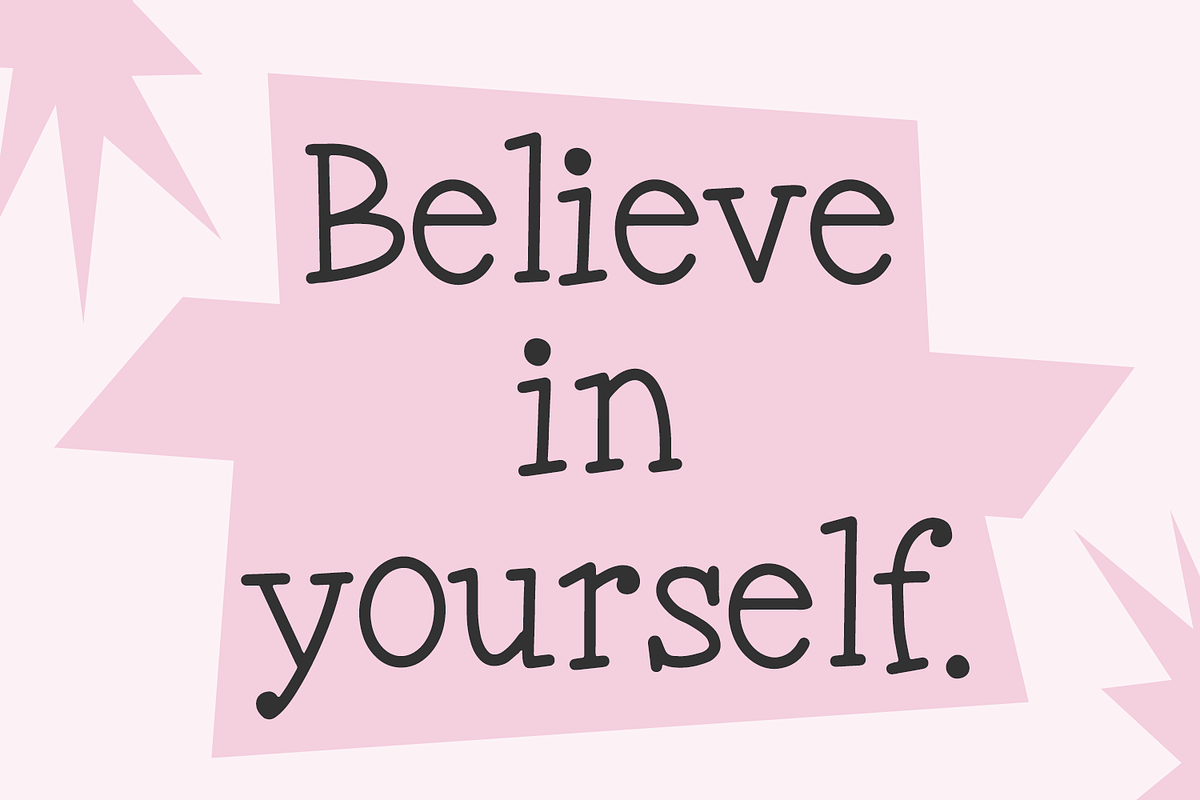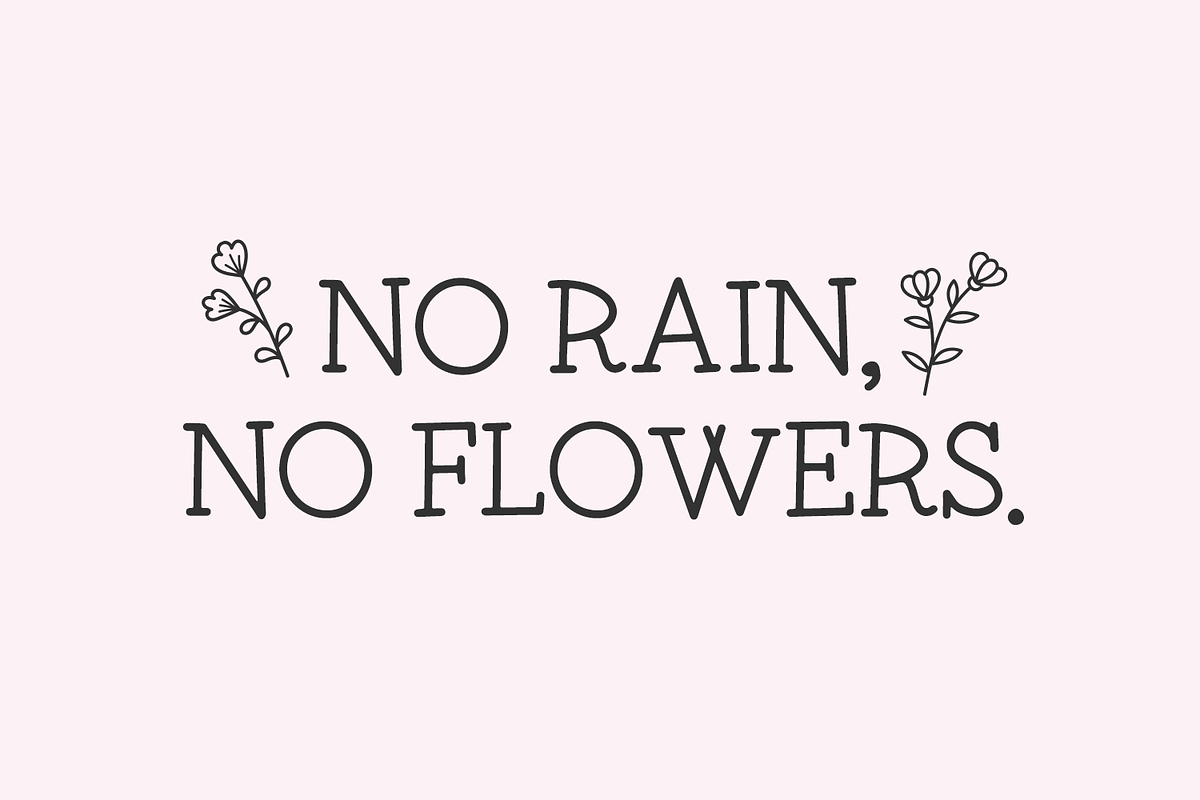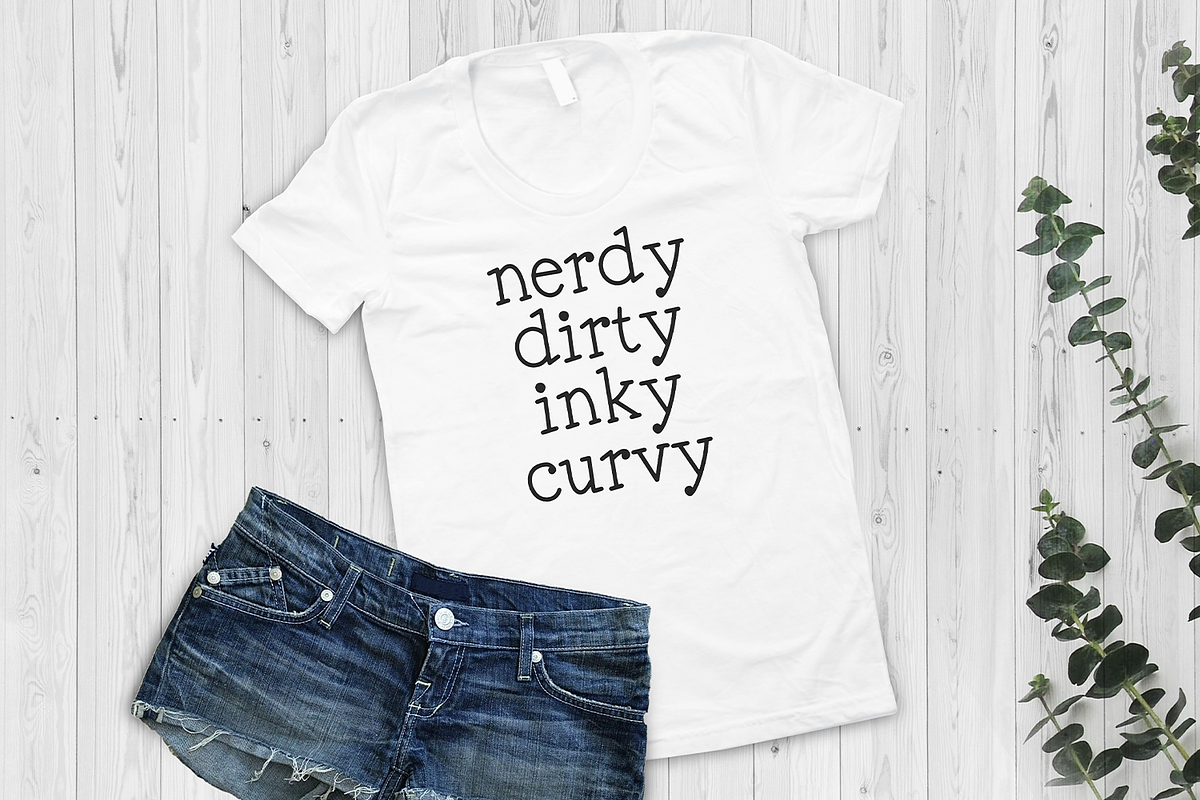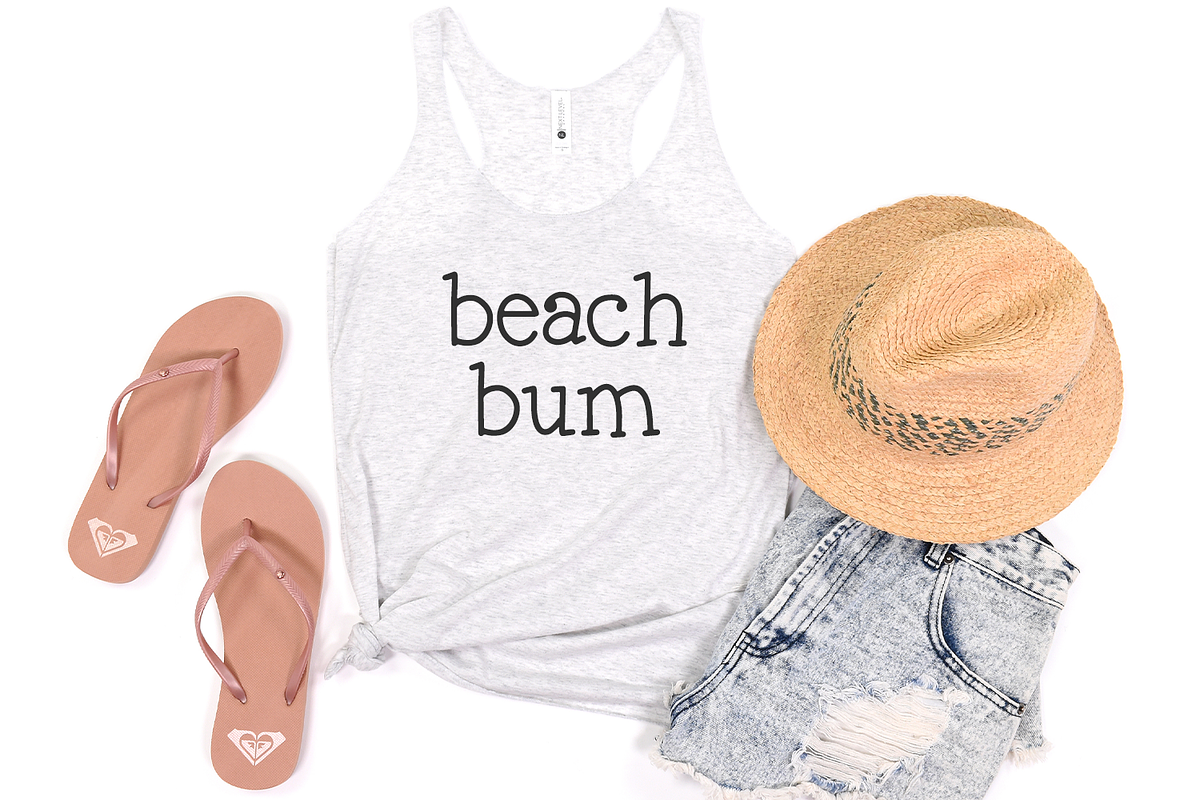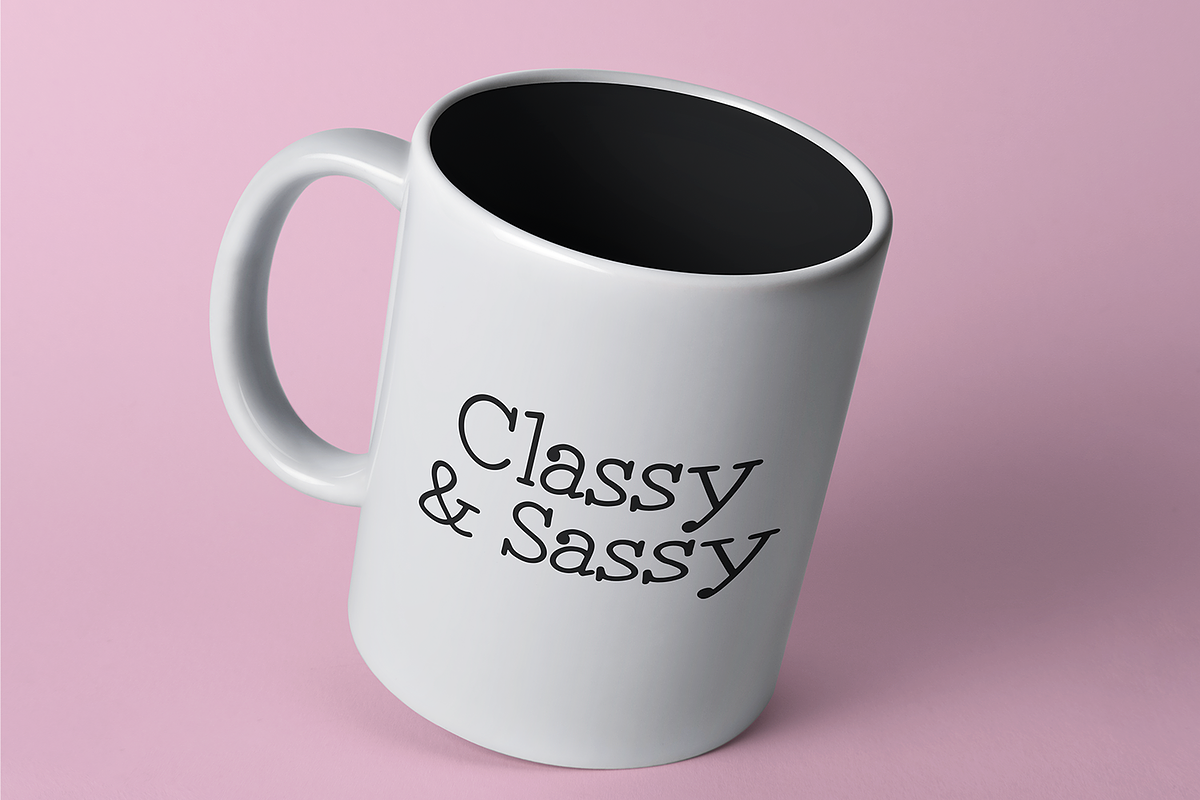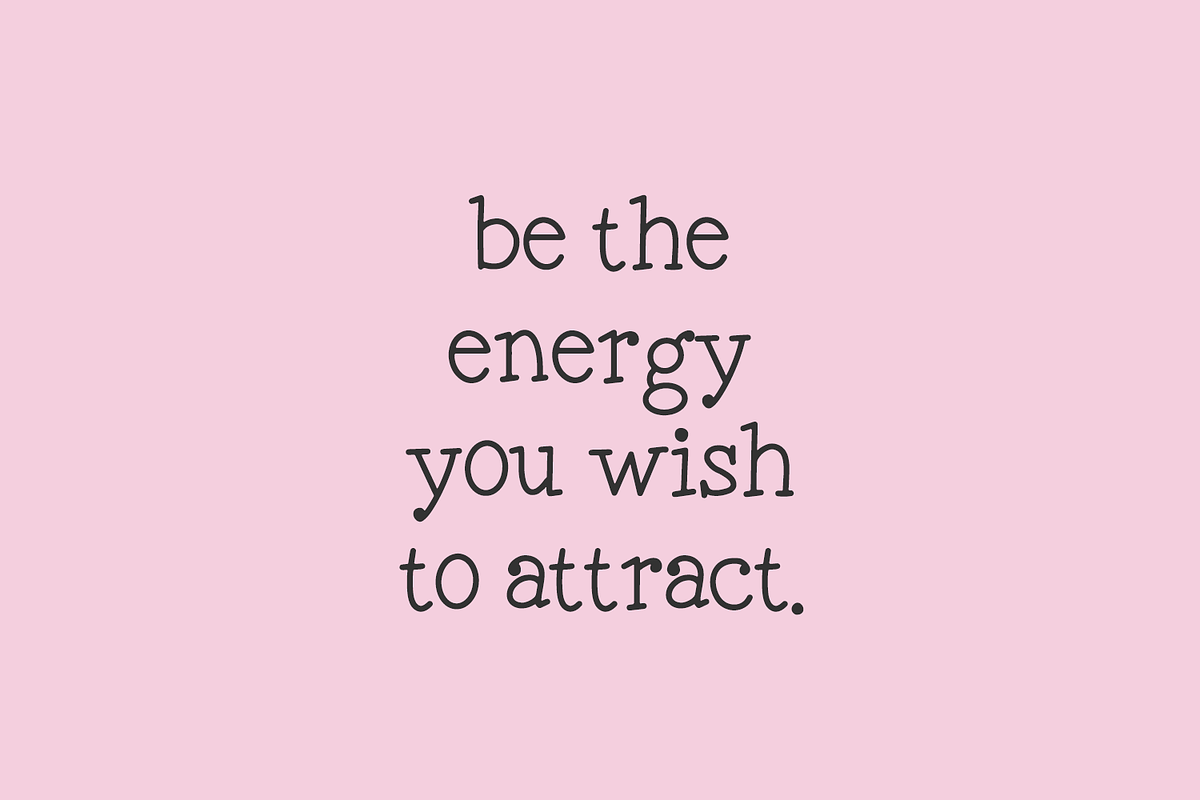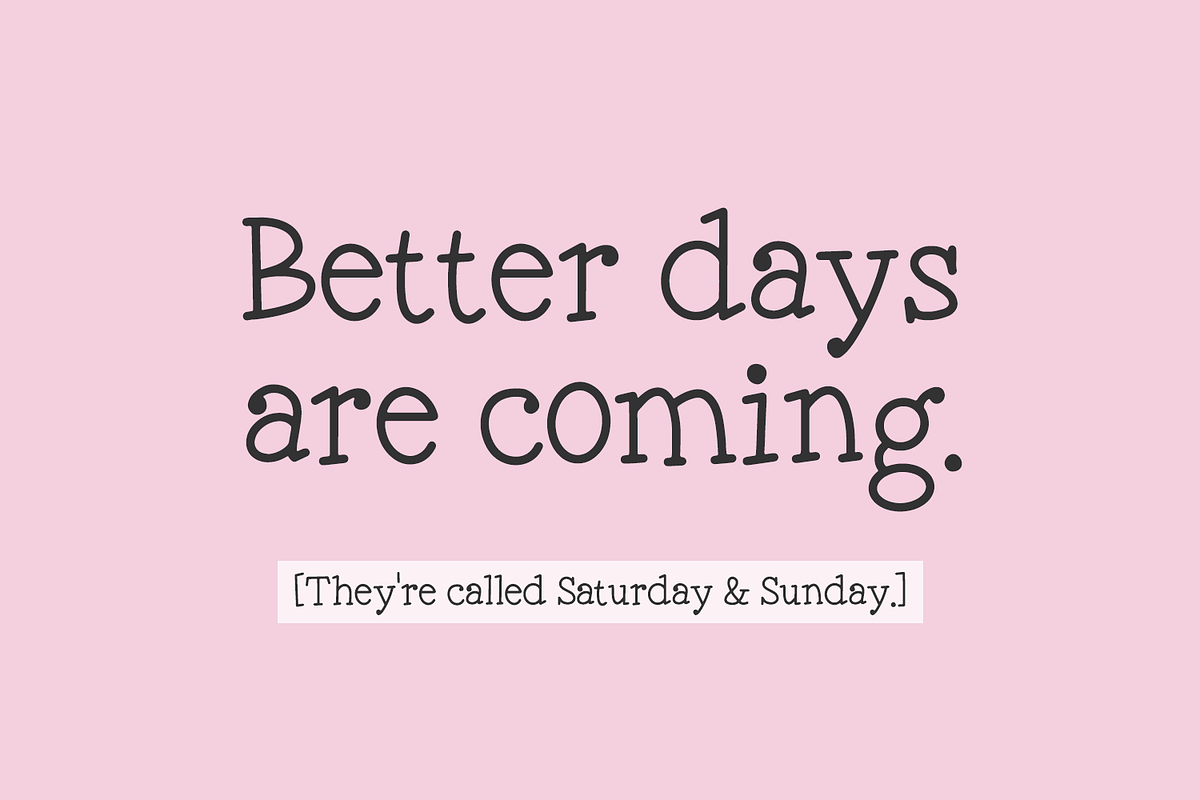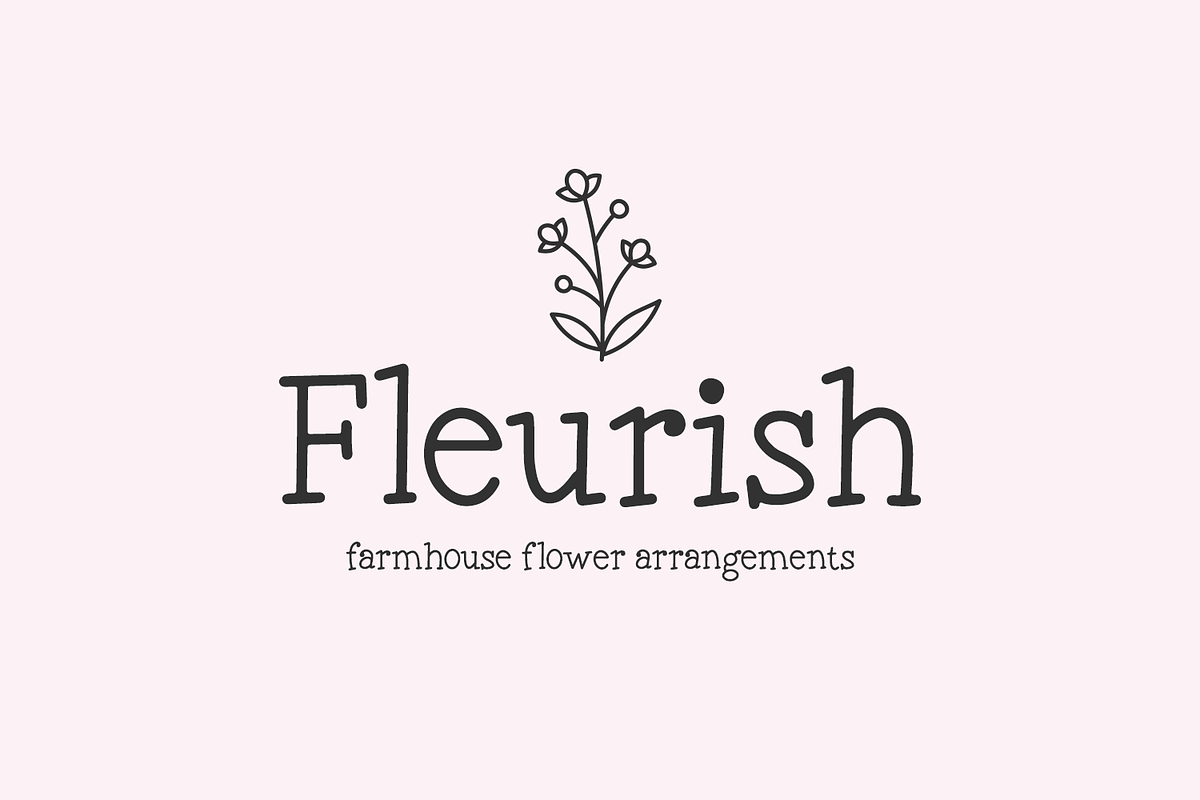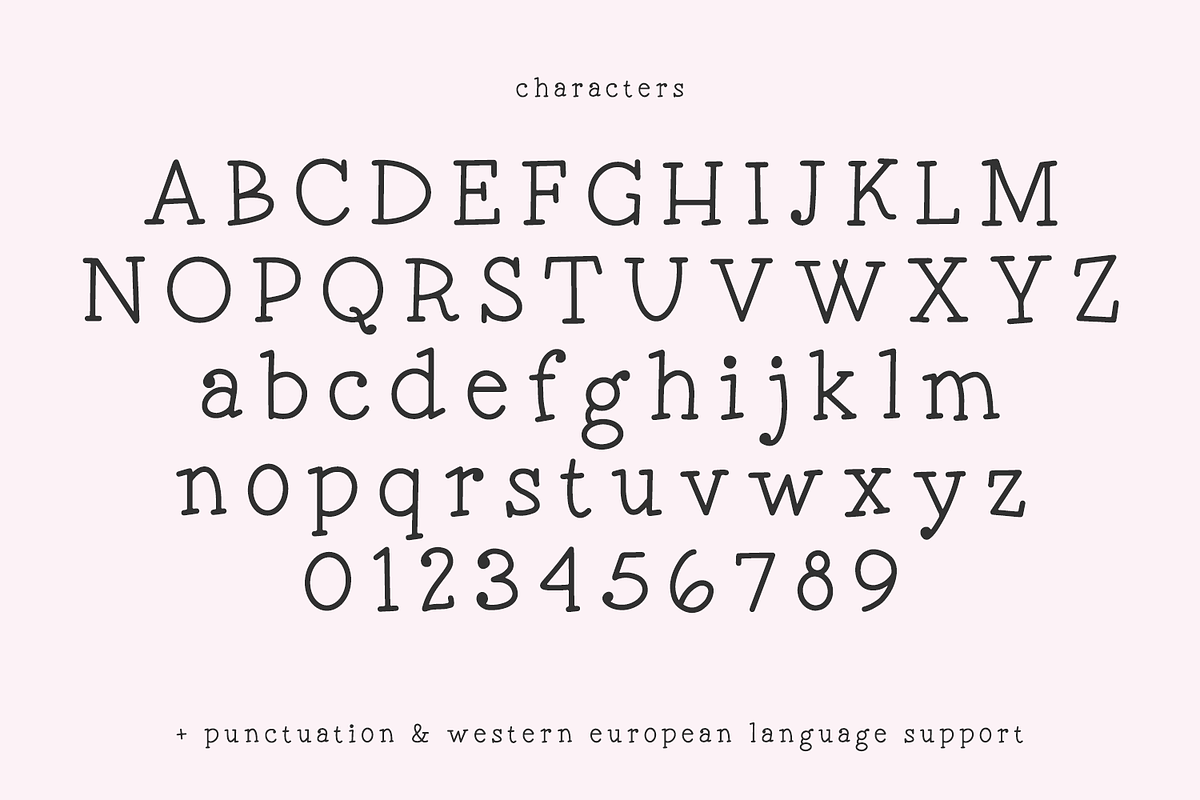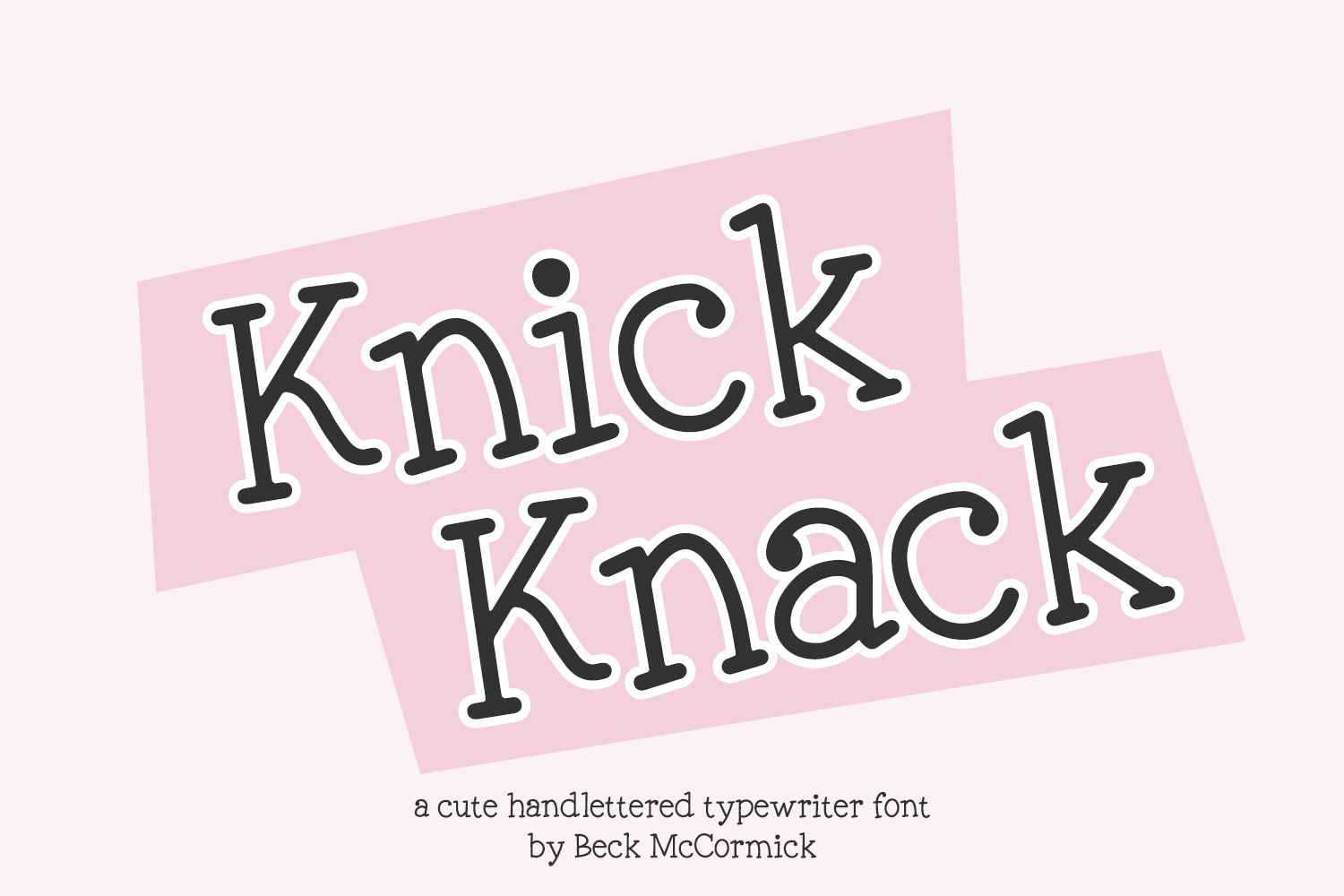
Knick Knack Typewriter Font
Say hello to Knick Knack, a handlettered typewriter style font. Knick Knack is cute, quirky, and clean with a touch of whimsy.
Knick Knack is best for:
- feminine, crafty projects with your Cricut or Silhouette machine, or your SVG design business
- farmhouse decor and crafts
- logos + branding
- website design + website accents, blog design
- clean print design, like magazines + flyers
- header elements that need handwritten touch
- quote graphics for social media
- feminine graphic tee shirt design & other apparel
- full upper + lowercase characters
- numbers + punctuation
- Western European Language Support